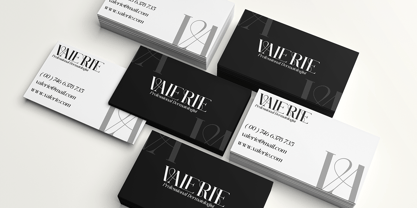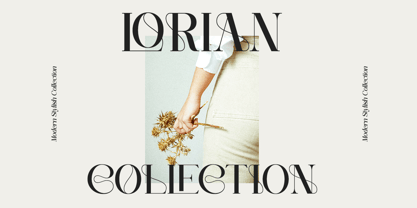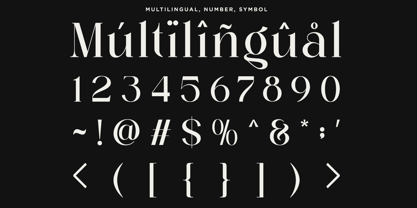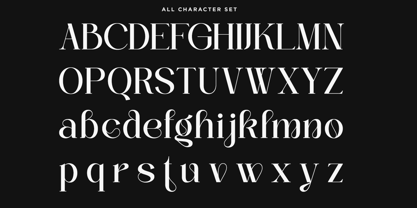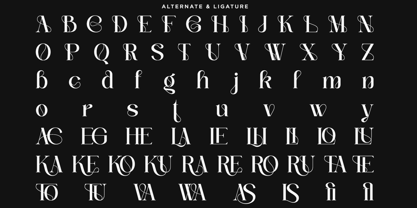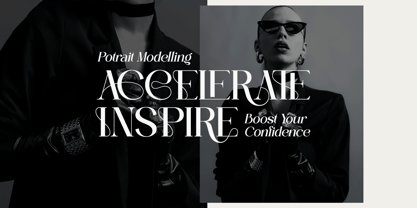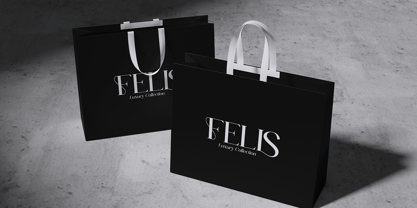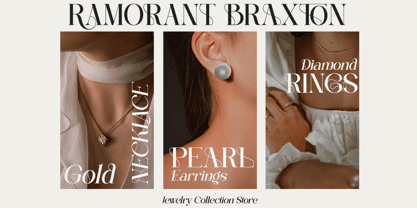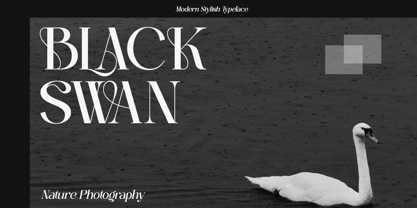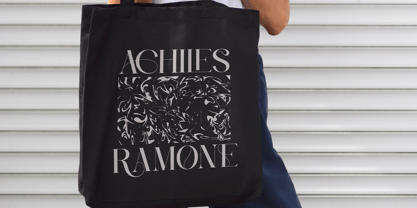
Balenia
by Say Studio
The Balenia Font Family was designed by Mussyayin and published by Say Studio. Balenia contains 2 styles and family package options. More about this family
Introducing Balenia – a refined and sophisticated serif font that blends timeless elegance with contemporary design aesthetics. Perfectly suited for high-end branding, editorial design, luxury fashion, beauty products, and lifestyle-themed projects, Balenia stands out with its graceful curves, balanced contrast, and stylish character forms. Balenia features a distinctive look that combines clean serif structure with artistic flair – particularly noticeable in its flowing ligatures and subtly decorative terminals. This modern serif typeface offers versatility and charm, making it an excellent choice for logos, headlines, magazine layouts, wedding invitations, and social media visuals. Features : - Balenia Regular - Balenia Italic - Stylistic Alternates - Stylistic Ligatures - Multilingual Support Thanks, Have a nice day Say Studio